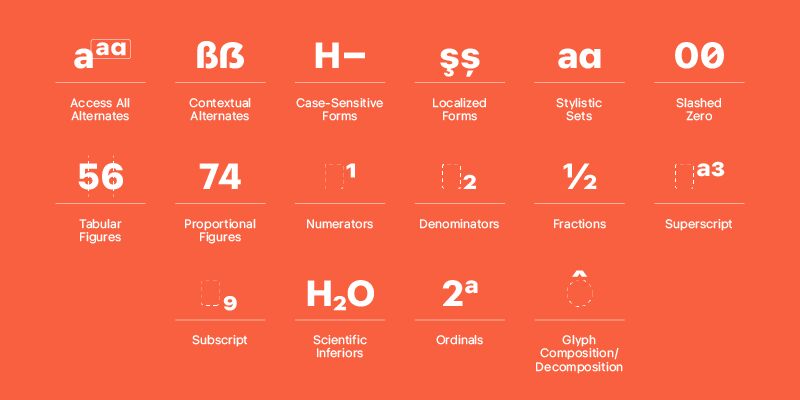
Dortmund ExtraBold, a sans serif typeface from the renowned Punchform, exudes confidence and boldness with its extra-bold weight and semi-expanded width.
Its clean and legible design makes it perfect for modern branding projects, such as creating impactful logos and eye-catching headlines. This font commands attention in various contexts, including advertising campaigns, magazine layouts, and website designs. Dortmund ExtraBold's versatility shines through in both print and digital mediums, offering a sleek and polished aesthetic that leaves a lasting impression on viewers.
Dortmund is a sans-serif type family designed to offer support for most Latin script languages.
Dortmund has nine weights, each with corresponding italics, 710 glyphs, and 17 OpenType features (aalt, calt, case, ccmp, dnom, frac, locl, numr, ordn, pnum, sinf, ss01, ss02, subs, sups, tnum, zero).
Dortmund supports 377 languages and covers 3 Unicode blocks (Basic Latin, Latin-1 Supplement, Latin Extended-A).